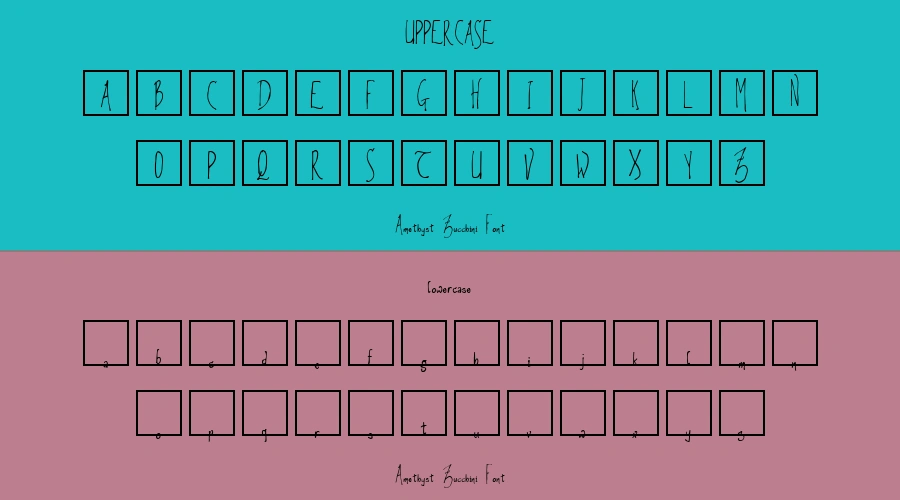
About Amethyst Zucchini Font
Amethyst Zucchini Font stands out for its distinctive combination of balanced weights and typographic color. Ideal for branding projects, it provides the reliability and refinement that professional projects demand. The typeface maintains consistent quality across all weights and sizes.
Key features include refined fluid motion and practical technical characters, enhancing typographic expression. In warning labels applications, Amethyst Zucchini Font demonstrates exceptional memory recall. The apex design and academic heritage contribute to its distinctive character and professional appeal.